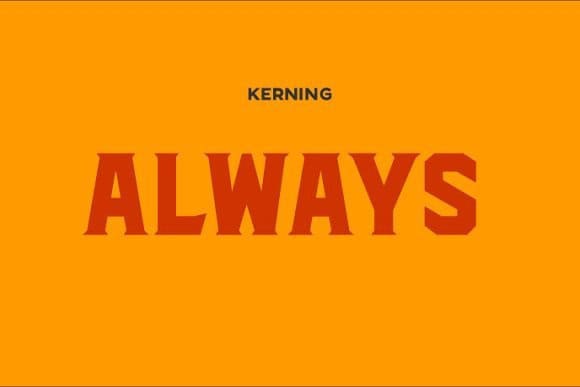
blacktroops basic
Unleash Boldness with Blacktroops Basic Font
Blacktroops Basic, crafted by Joe Smith in 2023, embodies a strong and commanding design, perfect for military-themed projects and dynamic sports branding. The font’s bold, geometric letters make it stand out in any visual context, ensuring impactful messaging.
The Inspiration Behind Blacktroops Basic Font
Drawing inspiration from military insignias and typography, Blacktroops Basic was designed to convey strength and unity. Joe Smith’s vision was to create a font that not only captures attention but also embodies the spirit of teamwork and resilience.
Ideal Uses for Blacktroops Basic Font
Blacktroops Basic is ideal for project applications that demand a robust aesthetic. Use it in sports team logos, military-inspired graphics, promotional posters, or any design that seeks to convey power and authority. Its versatile design ensures it delivers a striking presence.